05. Maze Font from Dene Studios
Maze is a unique and creative design that has been passionately handcrafted to give you a technical typeface. Inspired by science, this font is perfect for your next project, especially if you want to give a futuristic feel to it.
06. Melon Juice – Freshty Font from Good Java
08. Nersans – Vintage Font from Garisman Studio
09. Holicya – Retro Font from Dumadistyle
Holicya is a retro style font with a stunning style that can make the most of your design projects. This font gives a touch of the retro style that the 60-70s was famous for.
This font has alternative styles for Uppercase and Lowercase, Ligature, ss01, ss02, ss03 to ss04 which can be customized to suit your design needs so you don’t waste time creating extrusion effects.
The total glyps for this font is 356 so you can choose according to the right style.
10. Soul Doubt – Graffiti Font from Allouse Studio
Soul Doubt is a Graffiti Font with Two Syles.
Soul Doubt is perfect for product packaging, branding project, megazine, social media, wedding, or just used to express words above the background.
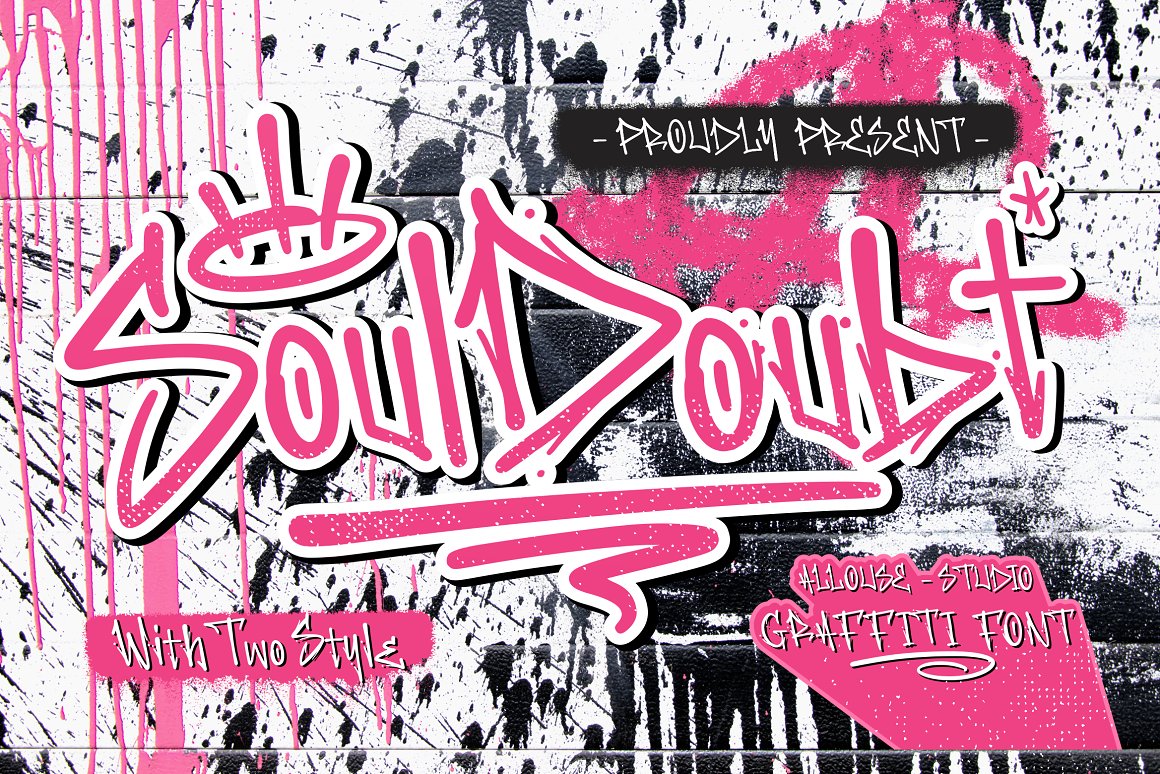
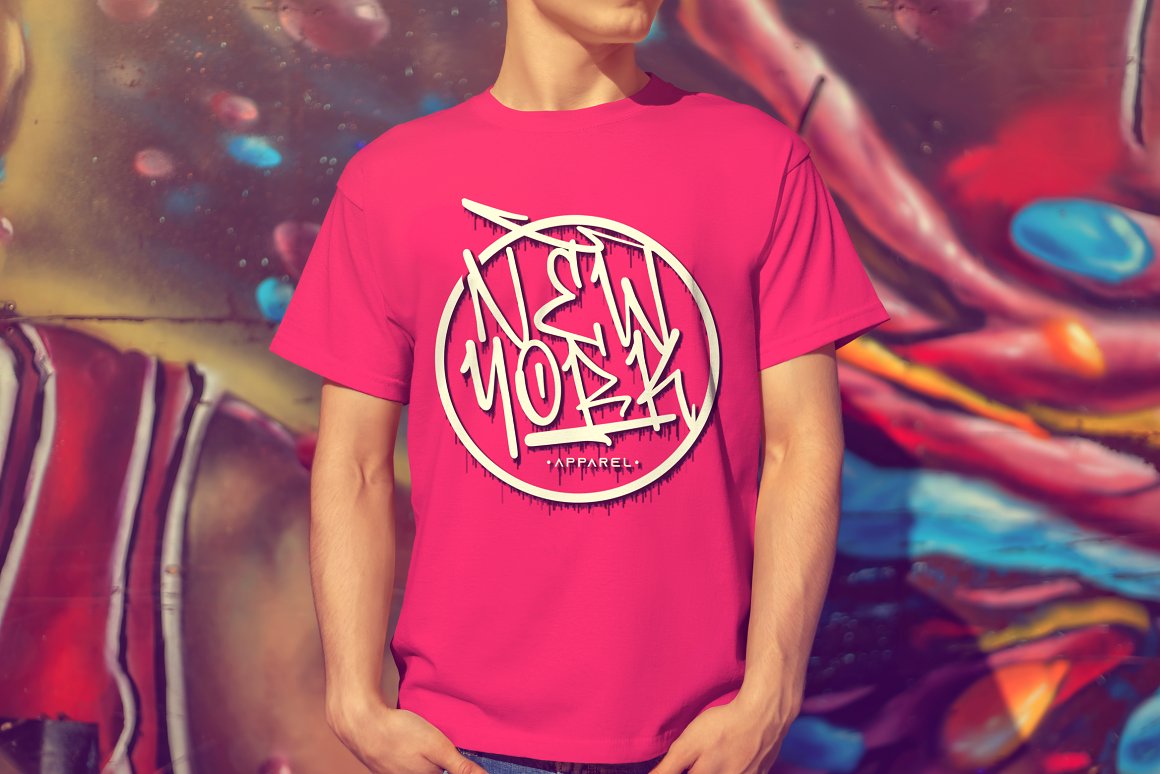
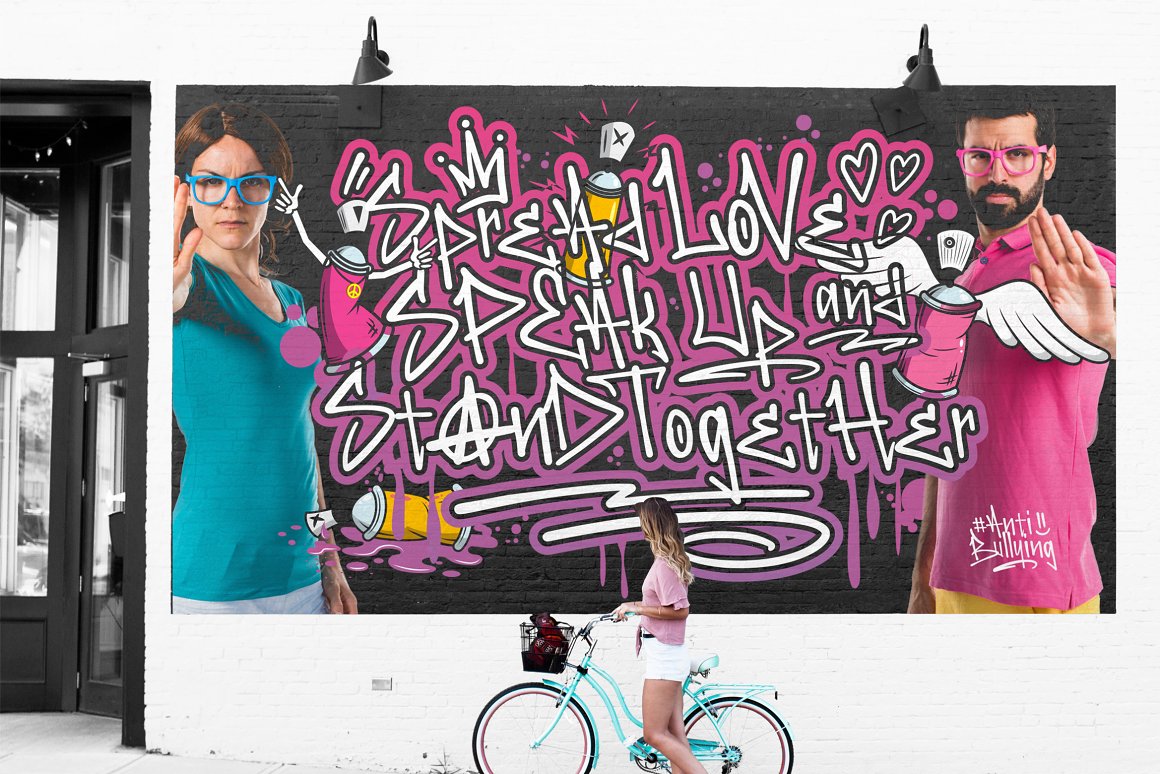
12. Handdrawn Graffitti Font – Deardorf from Allouse Studio
Deardorf is a Handdrawn Graffitti Font .
Deardorf is perfect for product packaging, branding project, megazine, social media, wedding, or just used to express words above the background.